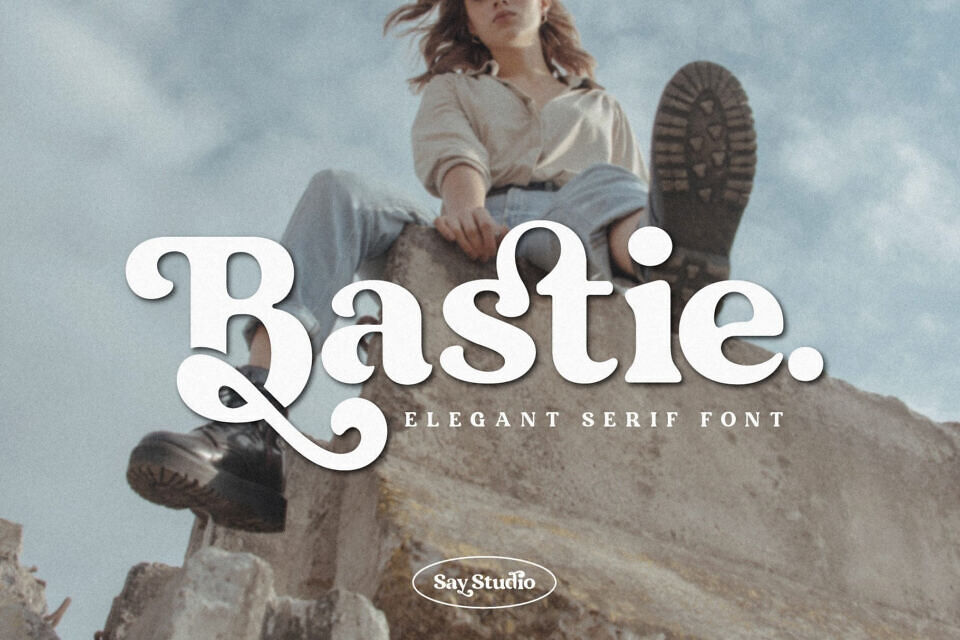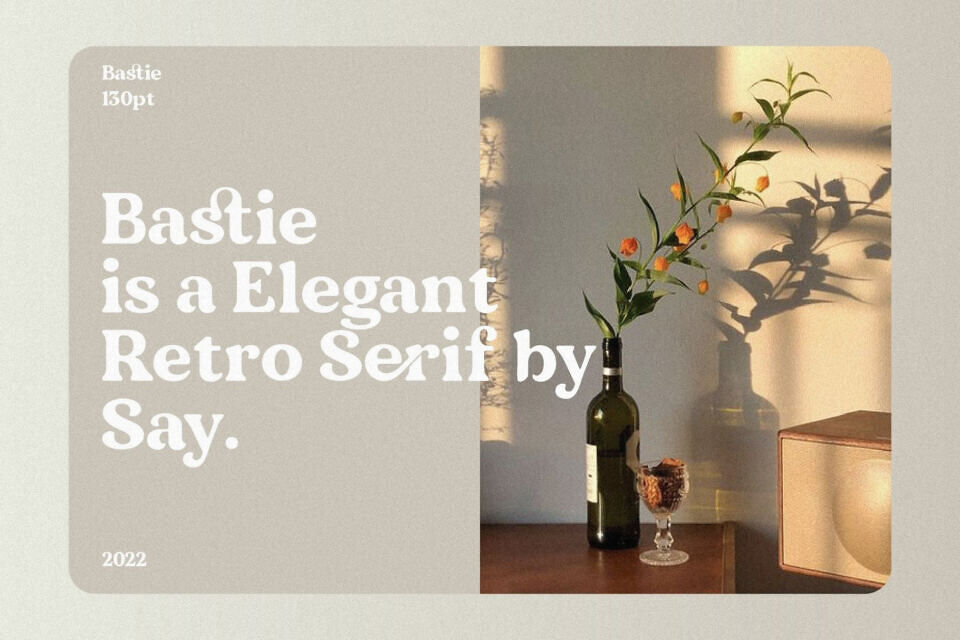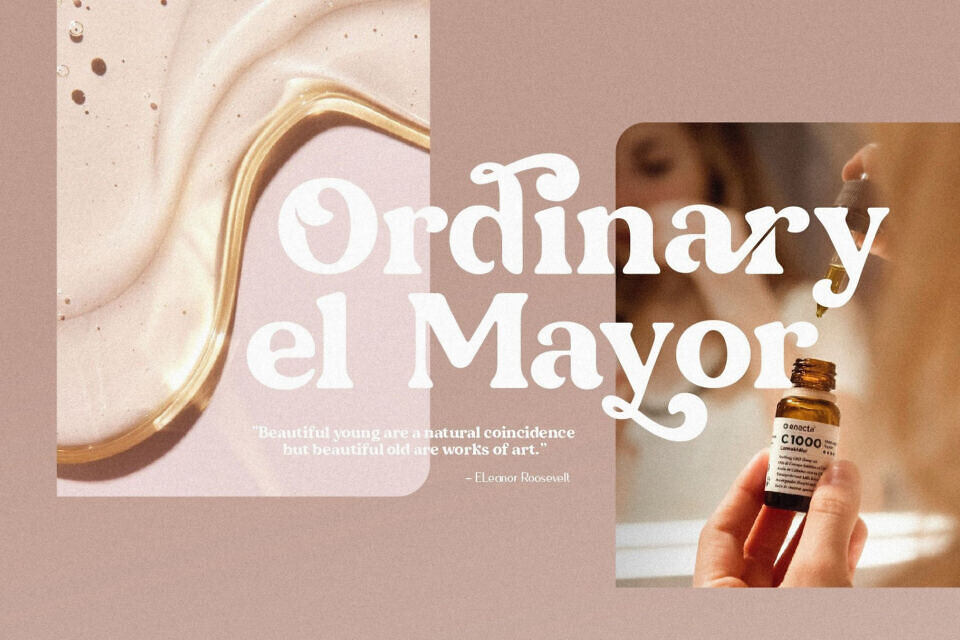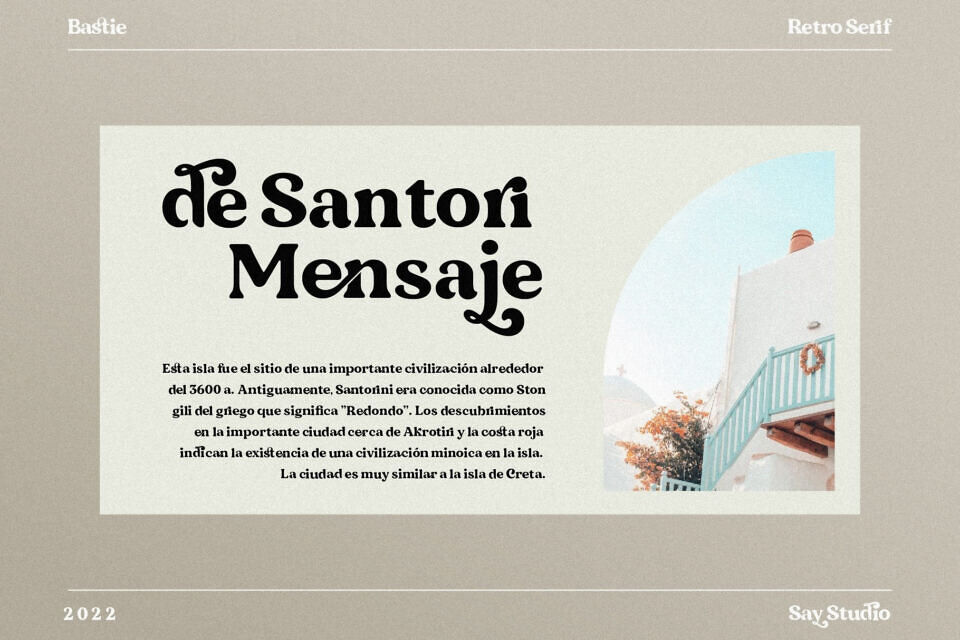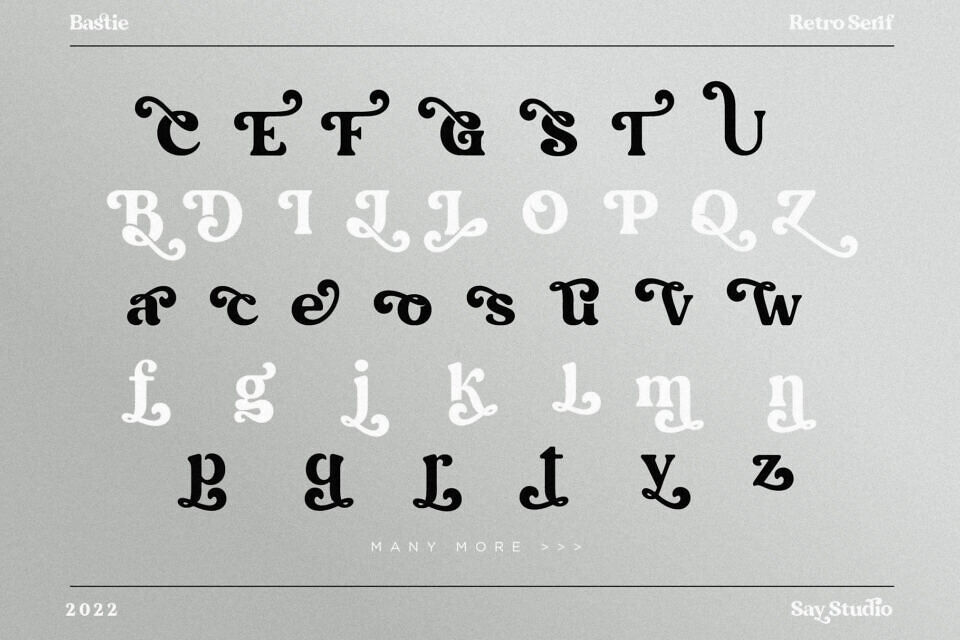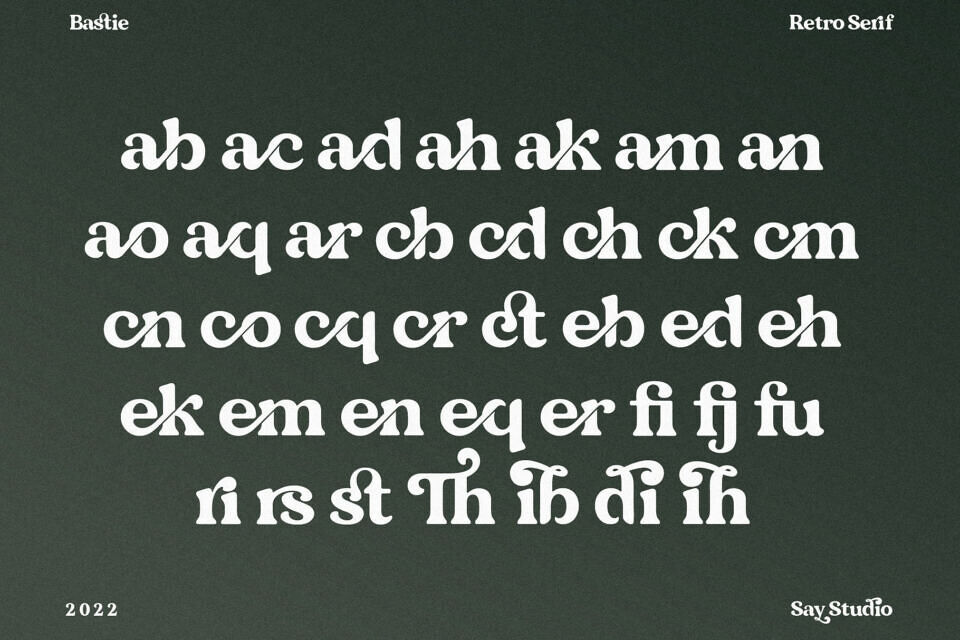
Bastie Font
Bastie is an elegant and stylish serif font. Its sophisticated and unique style will definitely transform your project into a true standout. Type the words and Add the unique shapes from Bastie ornament to get a more stunning display.
This font is suitable for many design forms, such as magazines, postcards, logos, DIY Projects, invitation cards, quotes, vintage look design, an old classic, the 60s, 70s, 80s, wedding projects and much more.